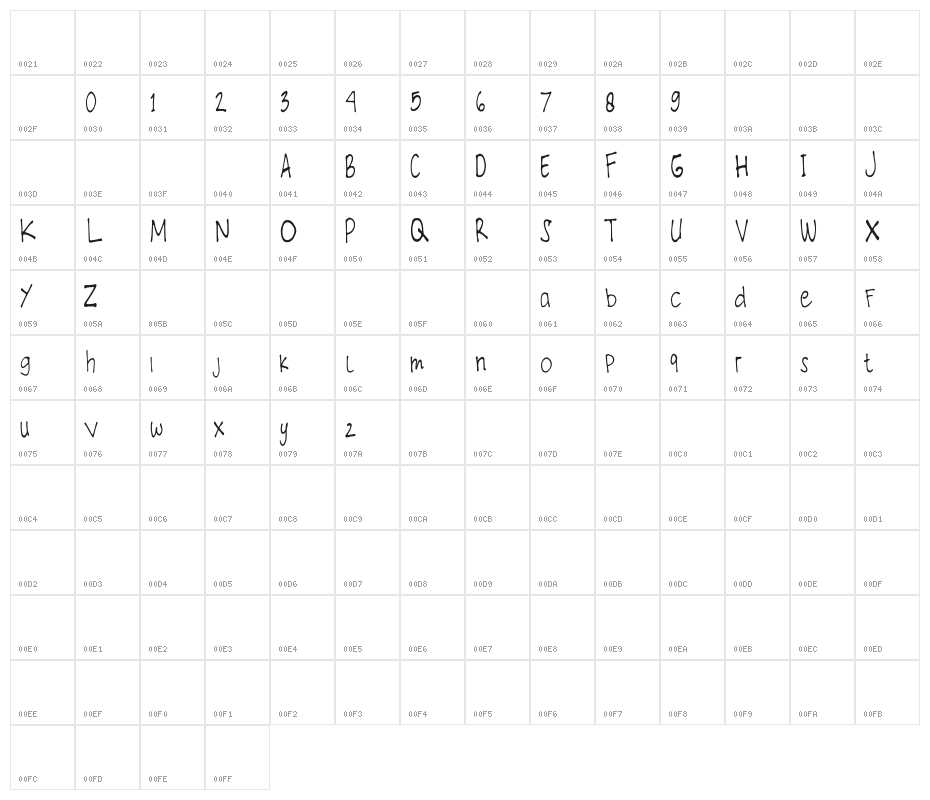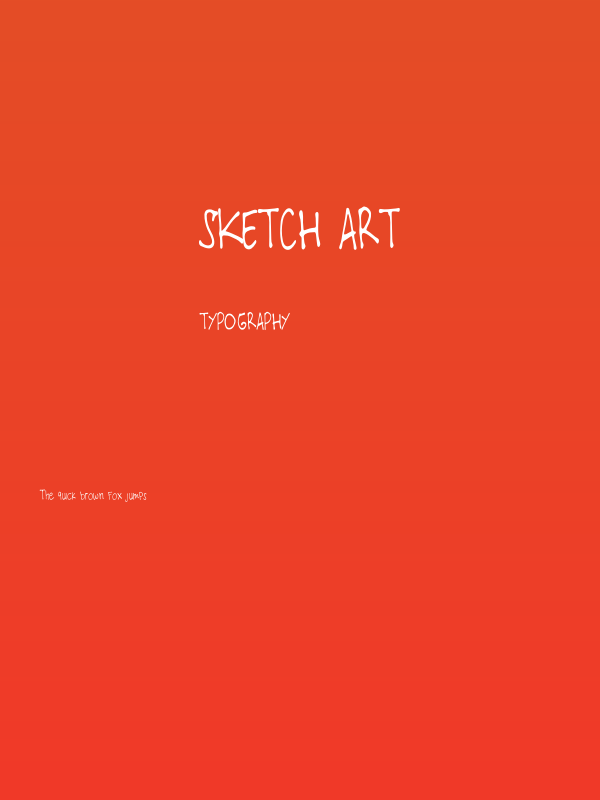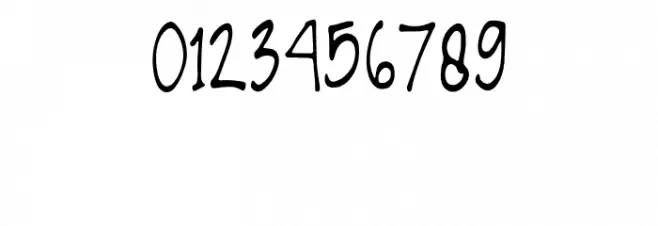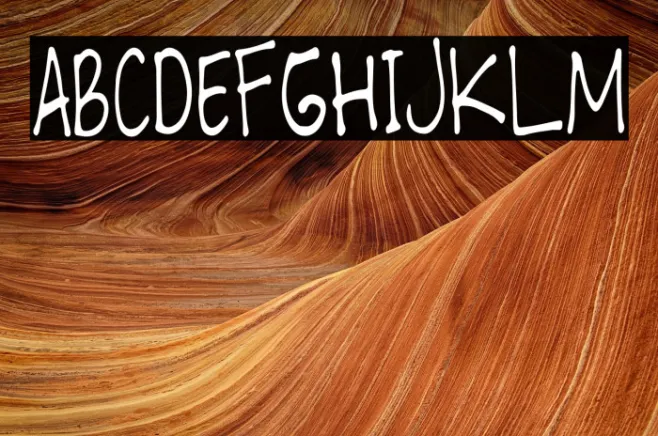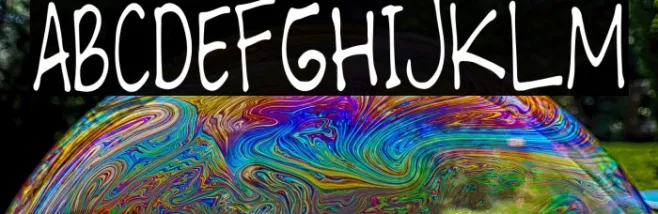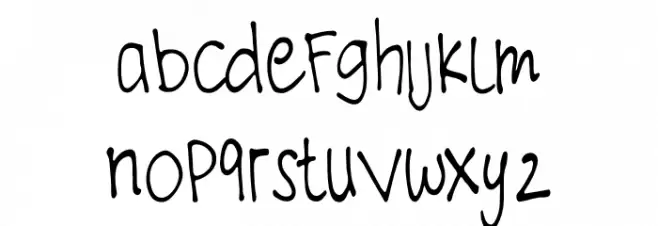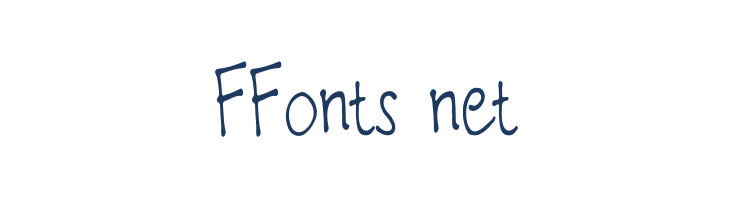
Sketch Art Font
Sketch Art Description
This font exhibits a playful and artistic style, characterized by its hand-drawn appearance. The letters are slightly irregular, giving it a casual and informal feel. The strokes are uneven, adding to its sketch-like quality, which makes it ideal for creative projects. The uppercase and lowercase letters maintain a consistent style, with rounded edges and a whimsical touch. Numbers and special characters follow the same artistic theme, ensuring a cohesive look across all text elements.
| Proposed Projects | Ideal for children's books, creative posters, art projects, and informal branding. |